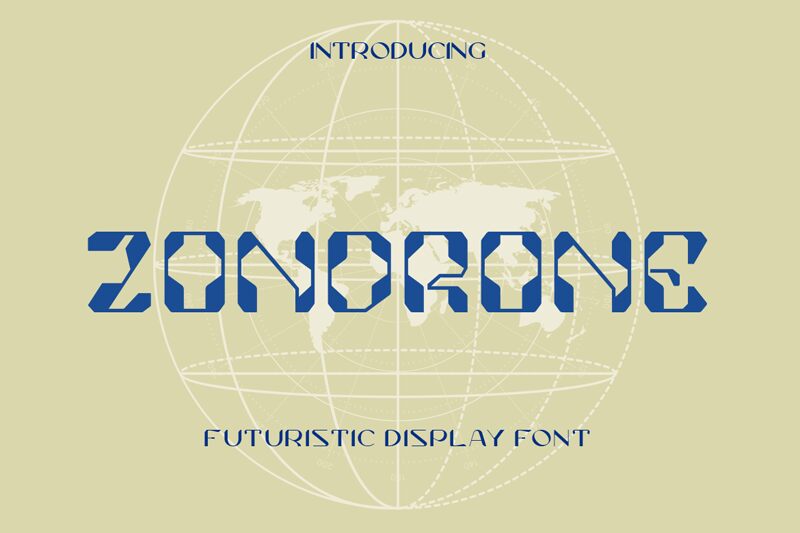
Zondrone, the captivating display font crafted by Sifak Muf of Liarttype, exudes a bold, technological allure. Its sharp, angular forms and geometric linework evoke a distinctly futuristic aesthetic, evoking a sense of digital modernity and cutting-edge design.
The Zondrone font's striking visual impact makes it an ideal choice for a range of design applications, from packaging and logos to magazine layouts and landing pages. Its versatile techno-inspired style seamlessly integrates with contemporary branding, digital interfaces, and visually-driven marketing materials, lending a sleek, sophisticated charm to any project.